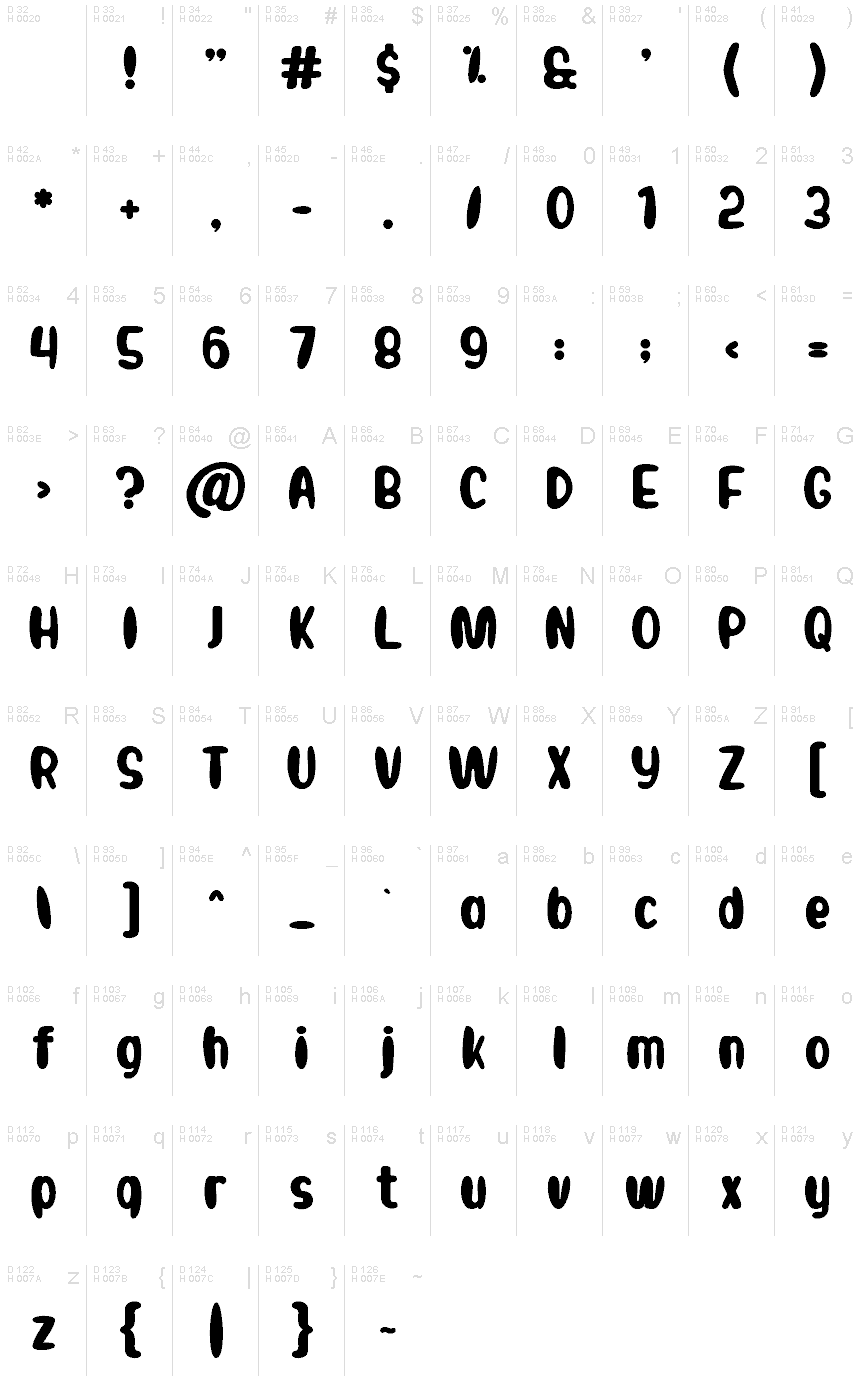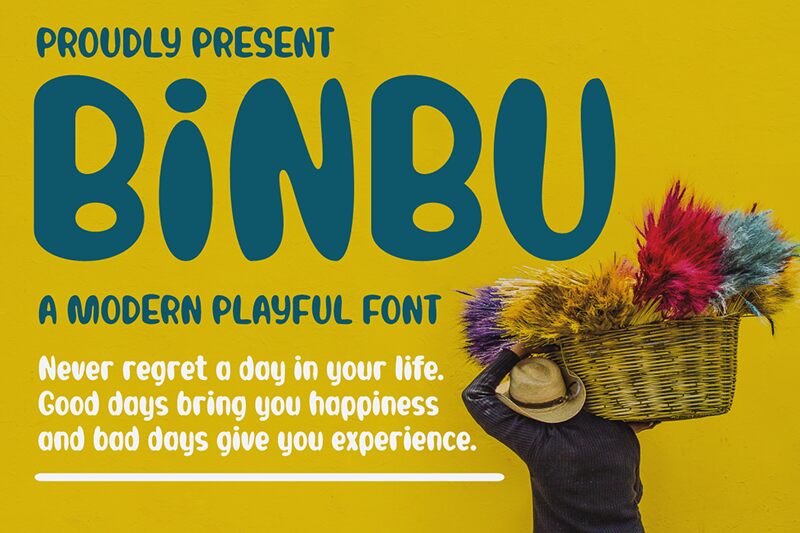
BINBU
Introducing Binbu, a fun and playful display font provided free for personal use by Maikohatta. This modern font, created and shared by Gilang Ternadho, is characterized by cartoonish letter designs with a fun, lively, and childlike spirit.
Its bold typeface comes with a variety of stylistic designs and offers unique logotype creations, and is appropriate for titles, headlines, logos, web design, social media graphics, poster design, branding, packaging, t-shirt design, etc.
Get inspired by the amazing selection of characters, symbols, and alternates available in Binbu font, a font that is perfect for all your projects!